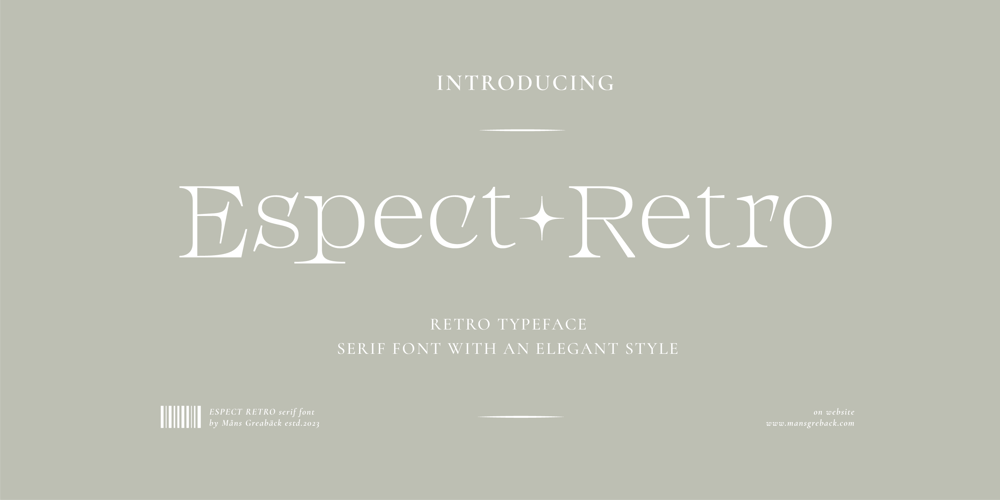
Espect Retro Font Family was designed by Måns Grebäck and published by Mans Greback. Espect Retro contains 4 styles and family package options. Espect Retro beckons to the discerning eye with its harmonious blend of the modern and the classic. Its wide, yet hairline-thin structure gracefully extends into elongated serifs, giving it a poised and elegant stance. The extended x-height isn’t just noticeable; it’s a celebration of design that evokes charm and cuteness in every curve and counter. Espect Retro’s lightness radiates a fashion-style sophistication, making it a go-to for classy projects.